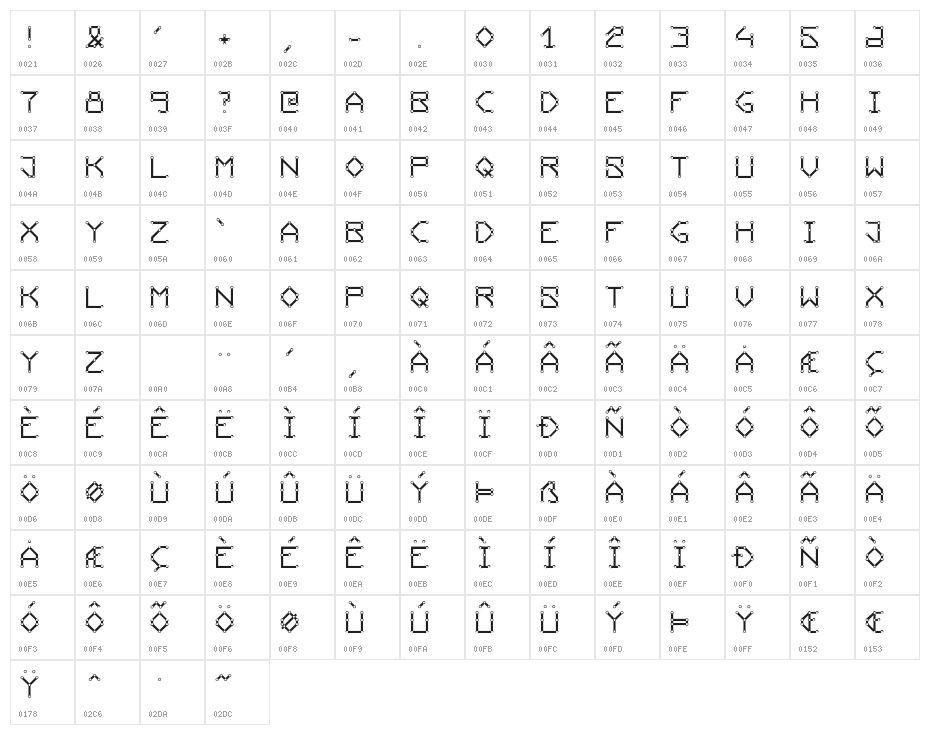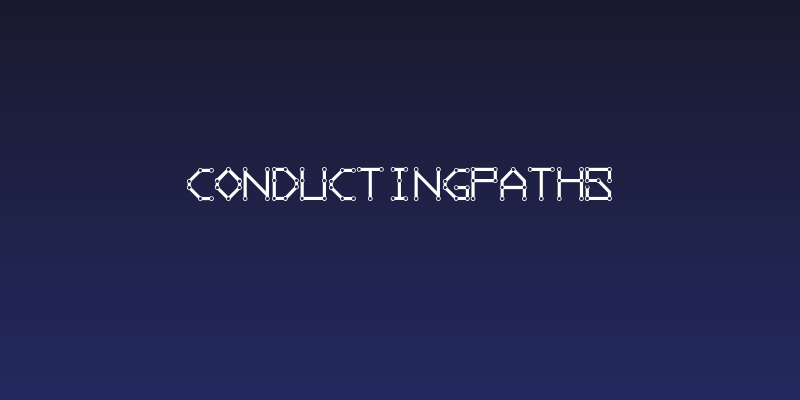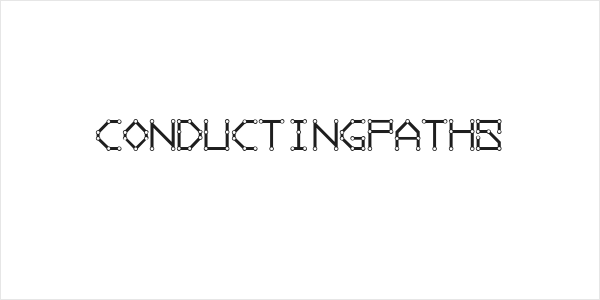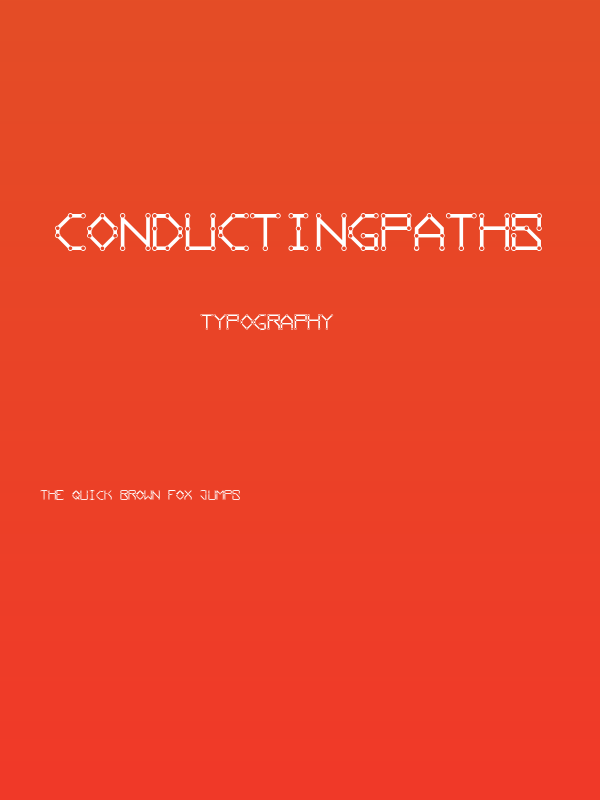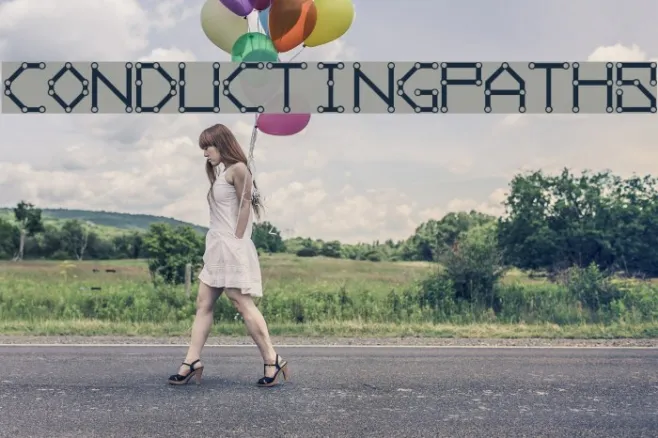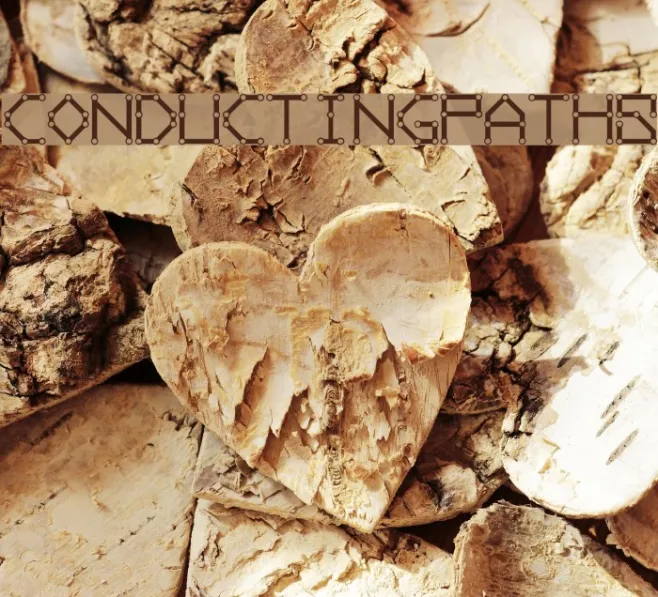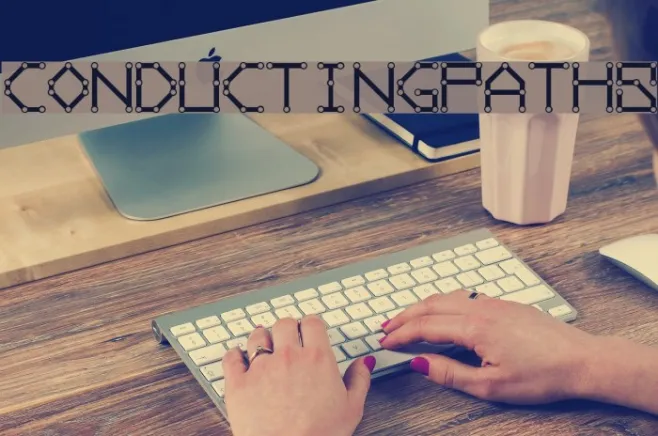
ConductingPaths Font
ConductingPaths Description
This font features a unique, circuit-like design with each character formed by connecting dots with straight lines, resembling electronic pathways. The uppercase and lowercase letters, as well as numbers and special characters, maintain a consistent geometric style, emphasizing a modern and technological aesthetic. The characters are constructed with a combination of horizontal, vertical, and diagonal lines, creating a sense of connectivity and precision. The overall appearance is clean and structured, making it suitable for projects that require a futuristic or digital theme.
| Proposed Projects | Ideal for tech-related branding, digital art projects, futuristic posters, and educational materials on electronics. |